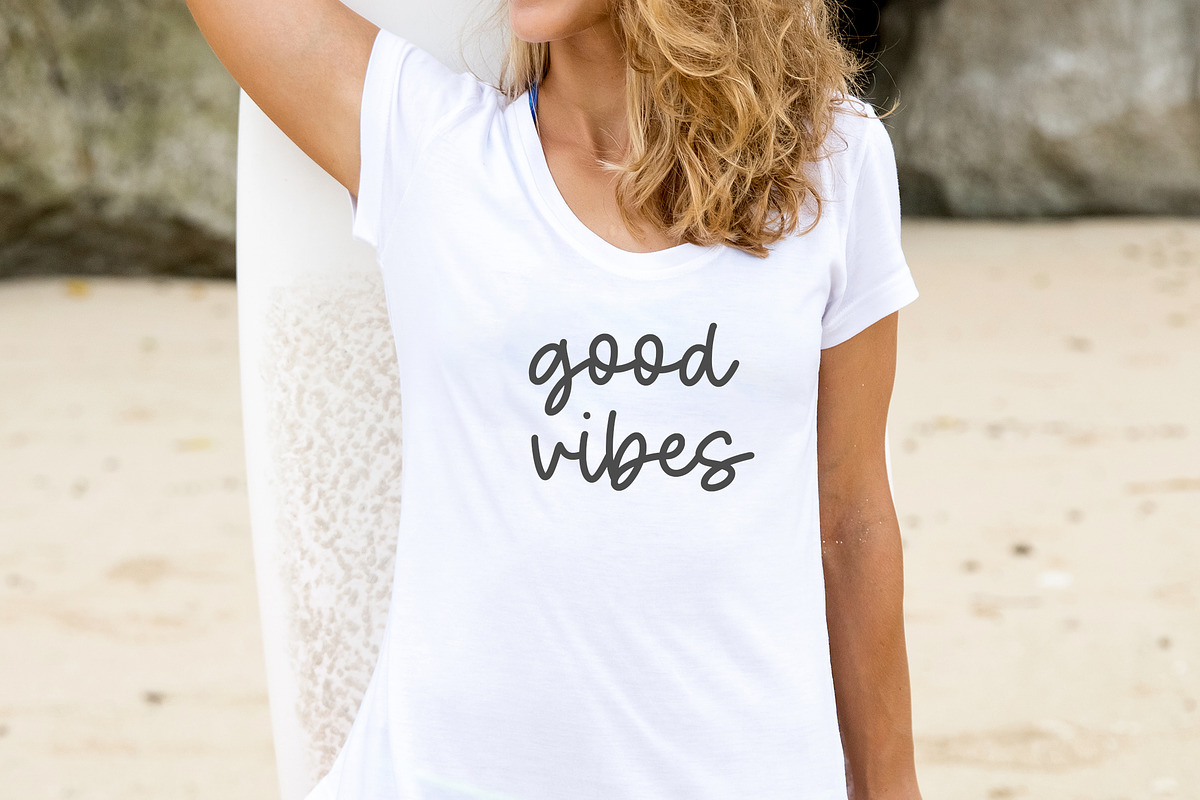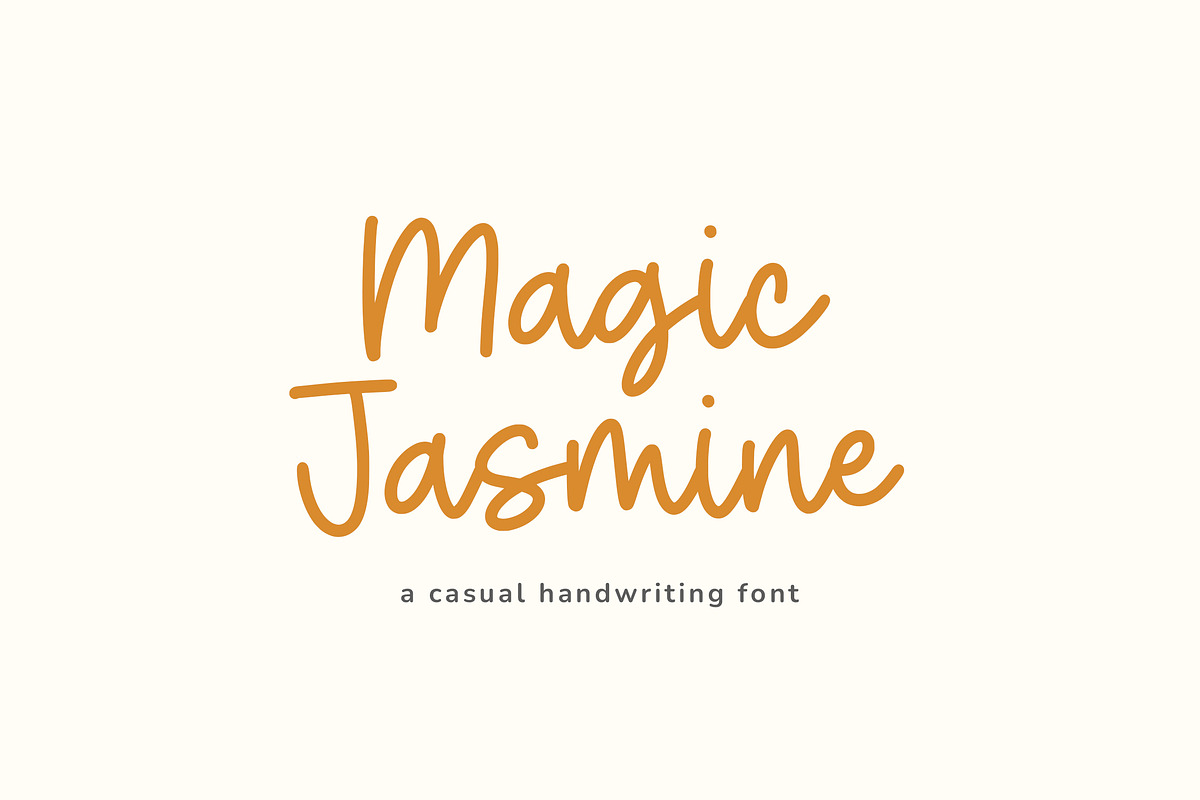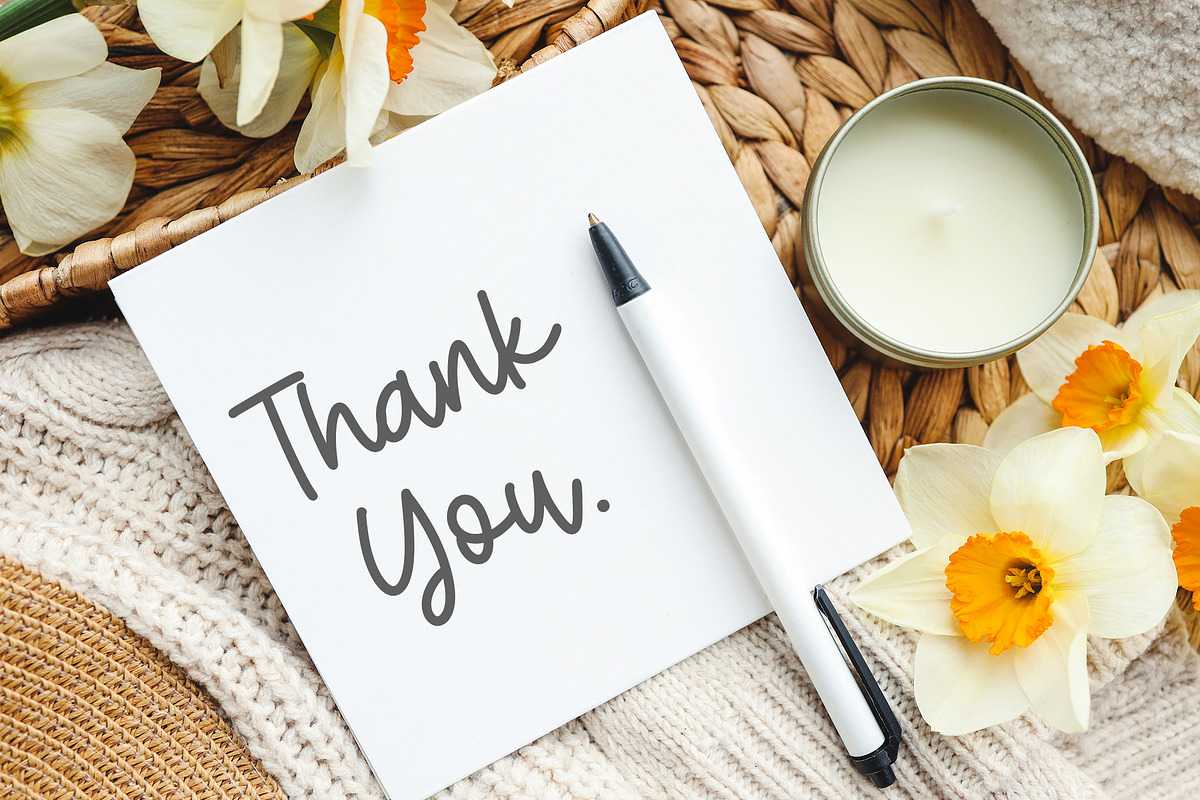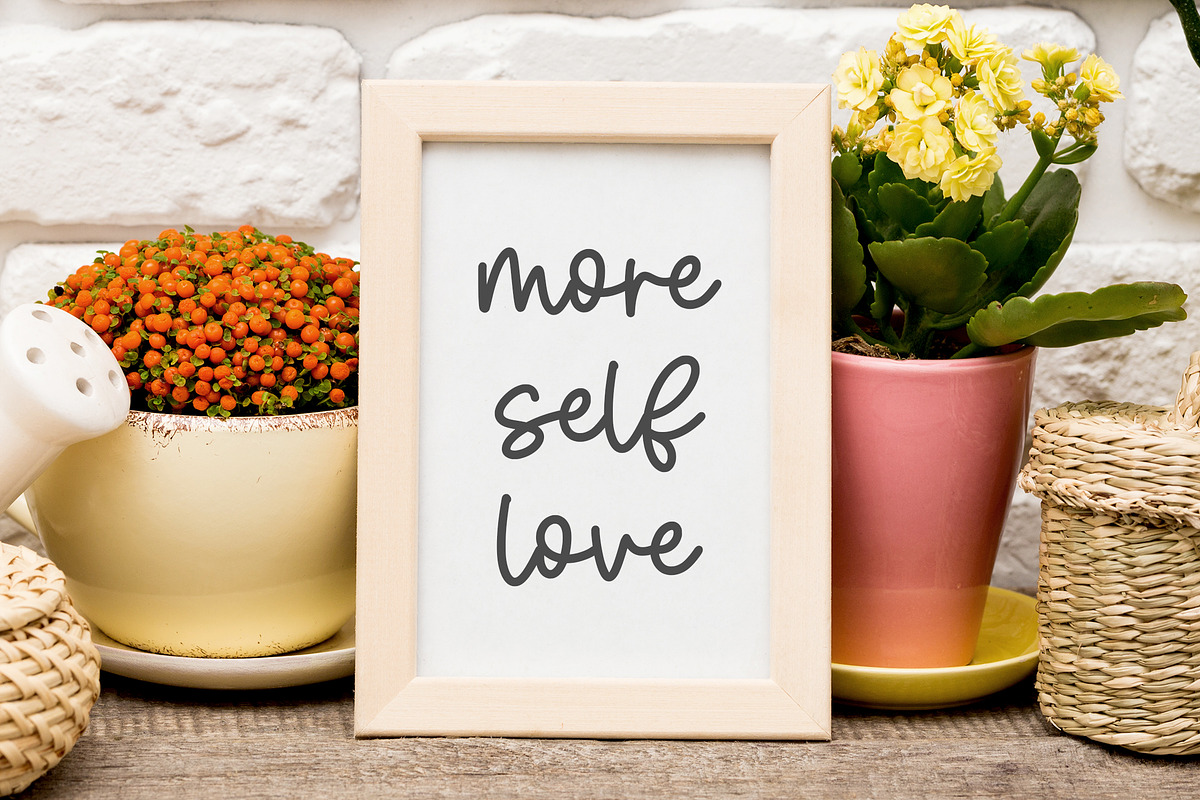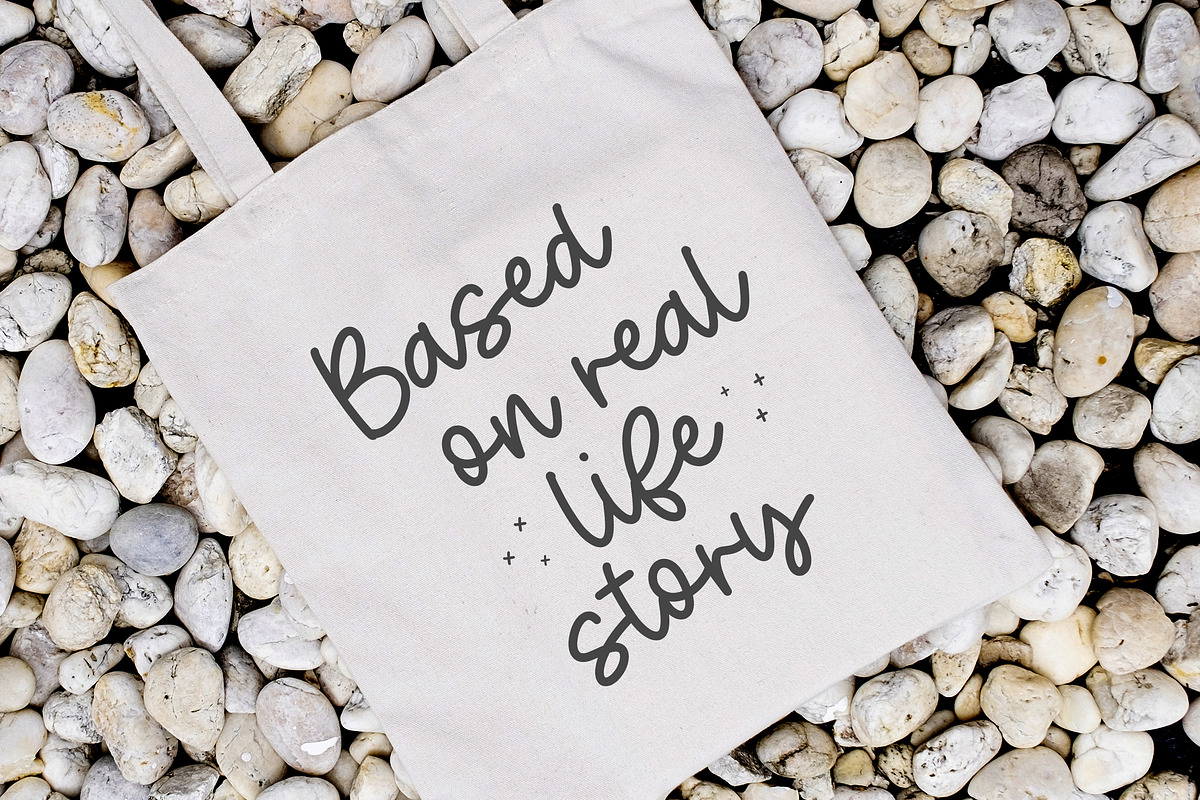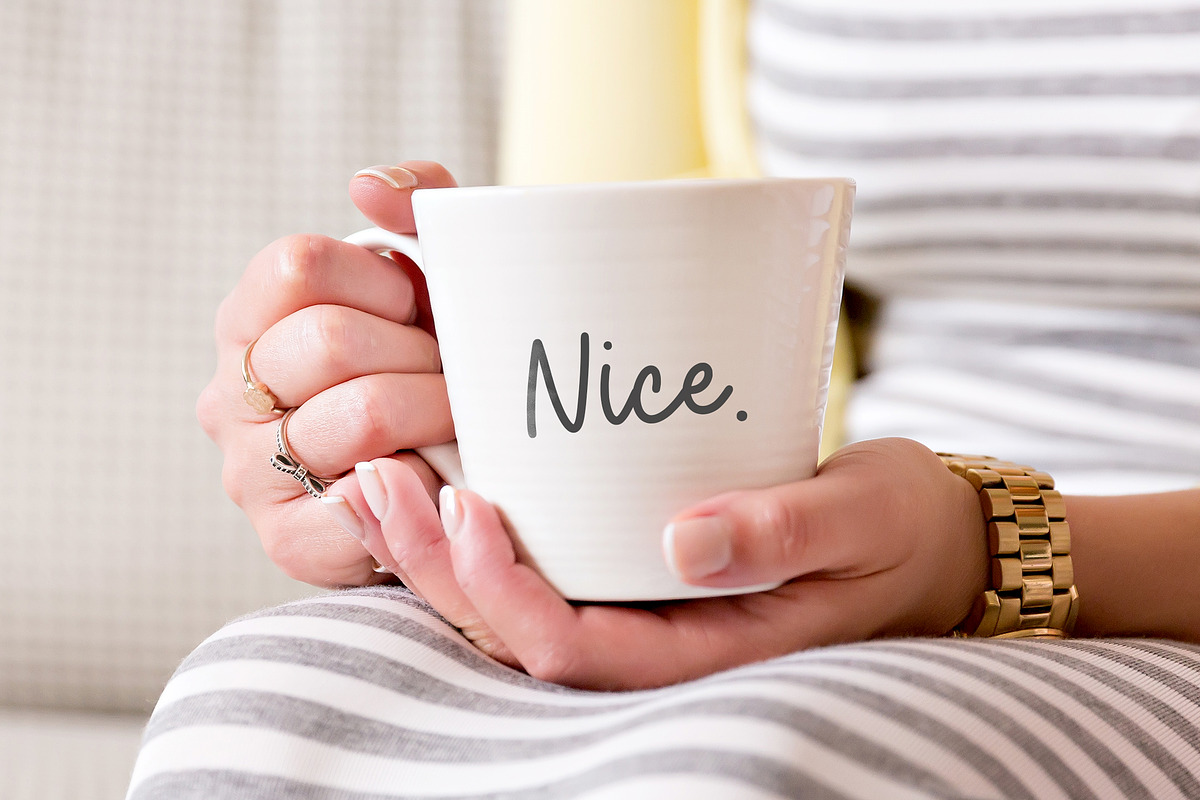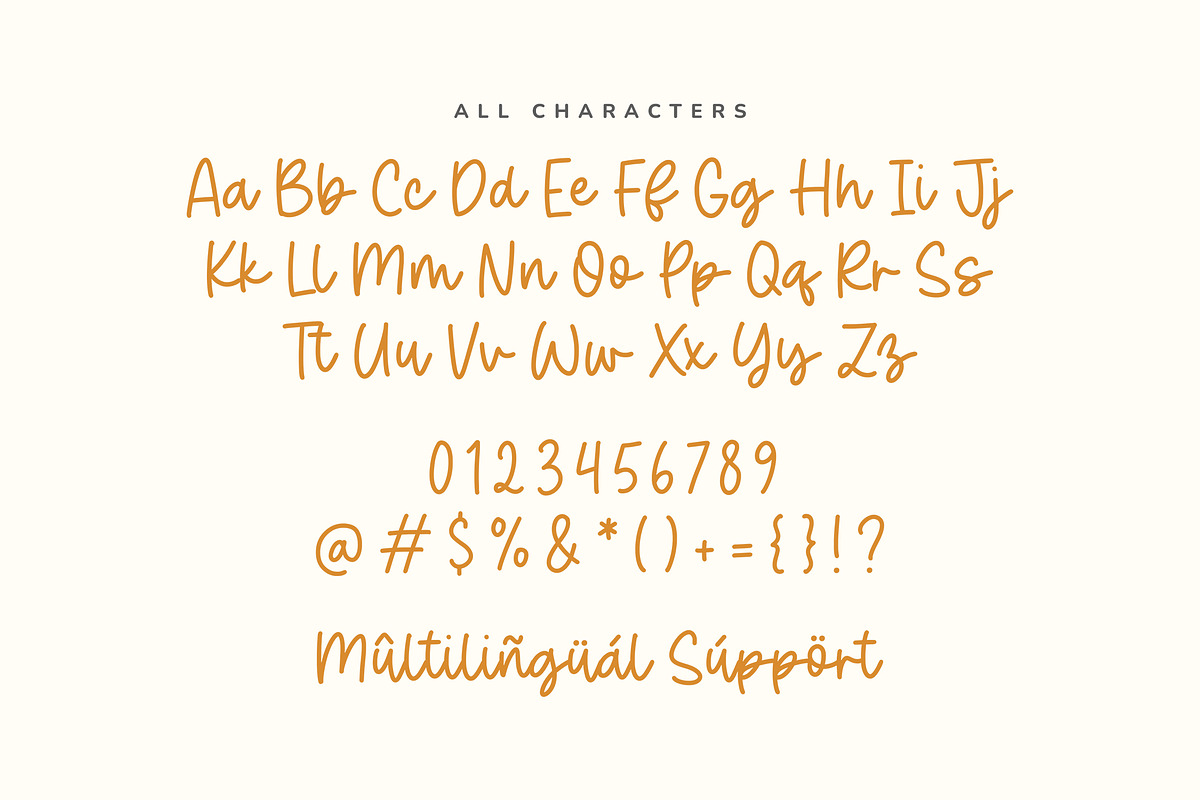
Magic Jasmine Font
Magic Jasmine is a Casual Handwriting Font
This font is a casual handwriting font that captures the warmth and charm of natural pen strokes. With its smooth curves, relaxed flow, and authentic handwritten feel, it brings a touch to invitations, branding, social media graphics, quotes, and everyday design projects. Elegant yet approachable, Casual Jasmine adds effortless character and creativity to any text.
Magic Jasmine Font also supports multilingualism